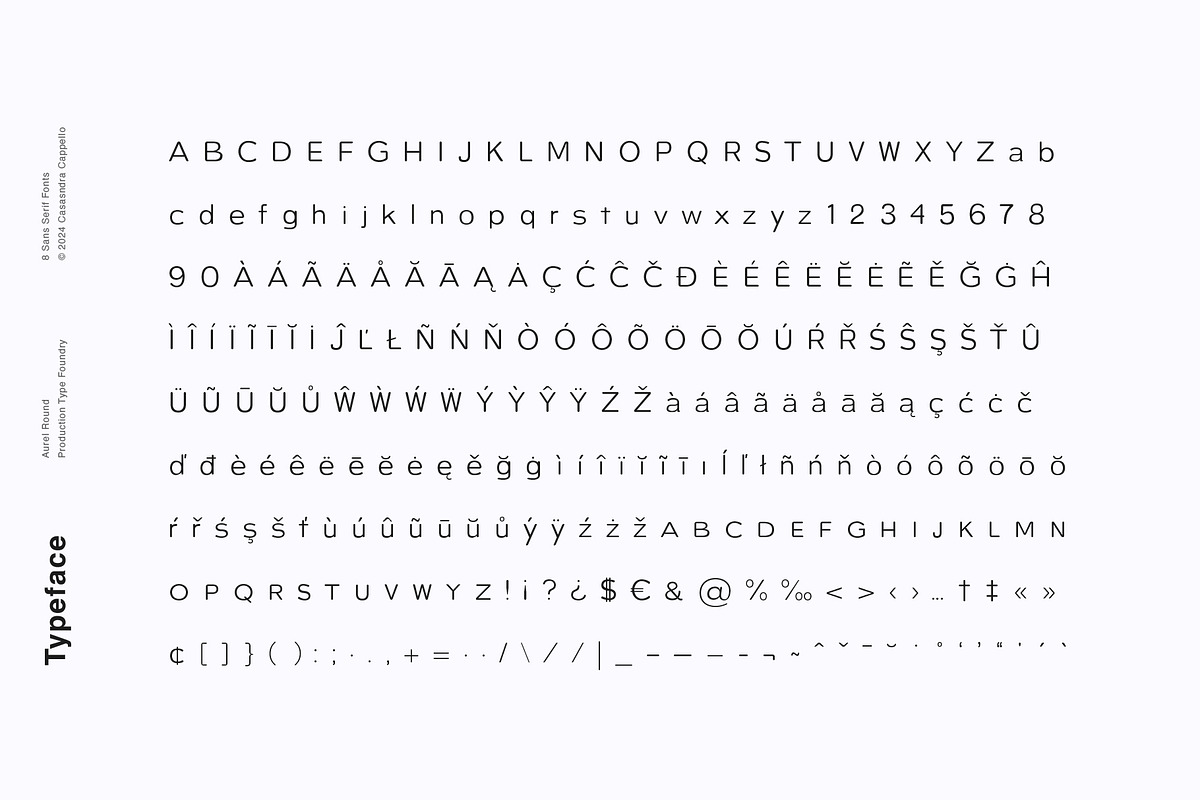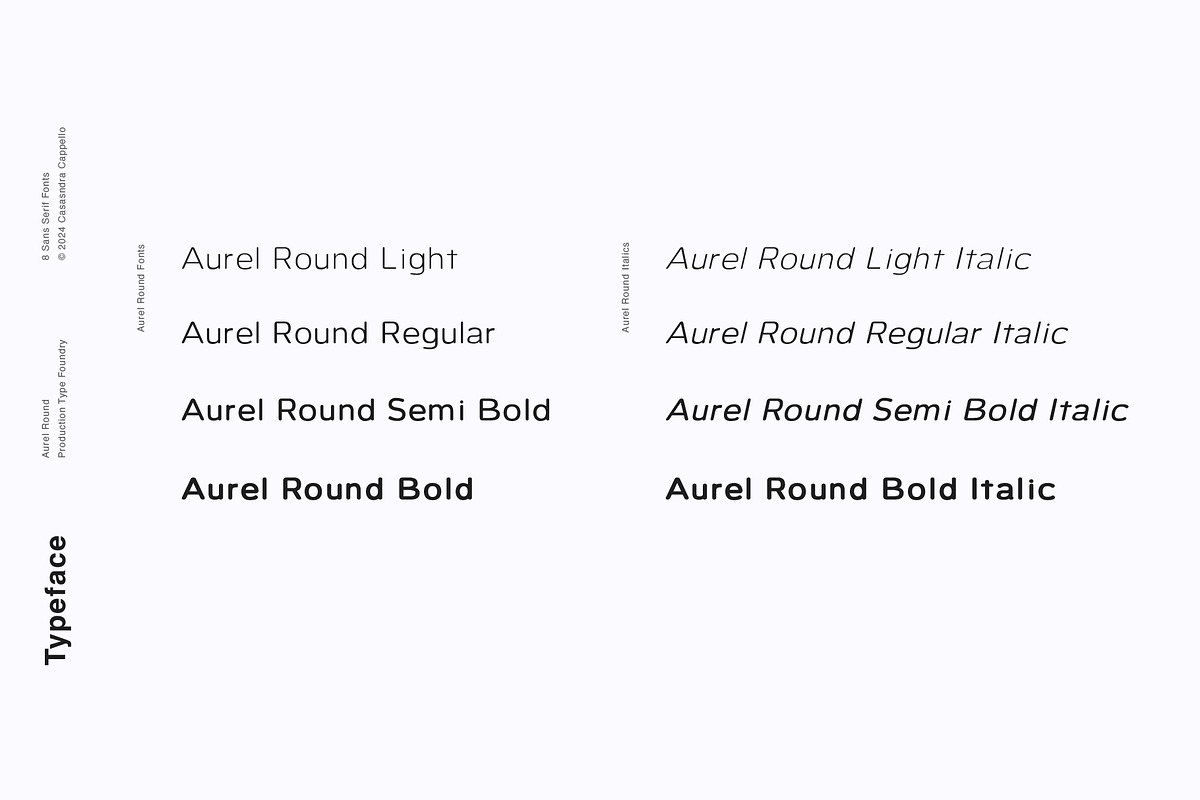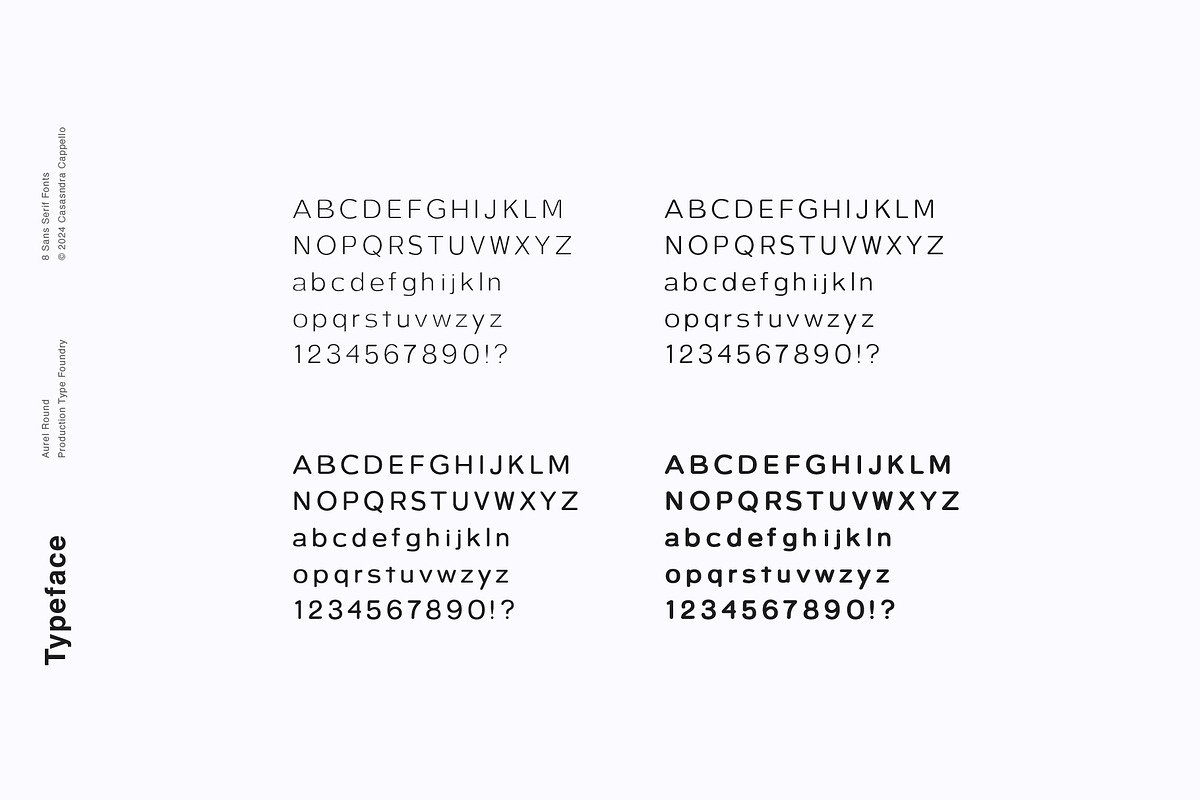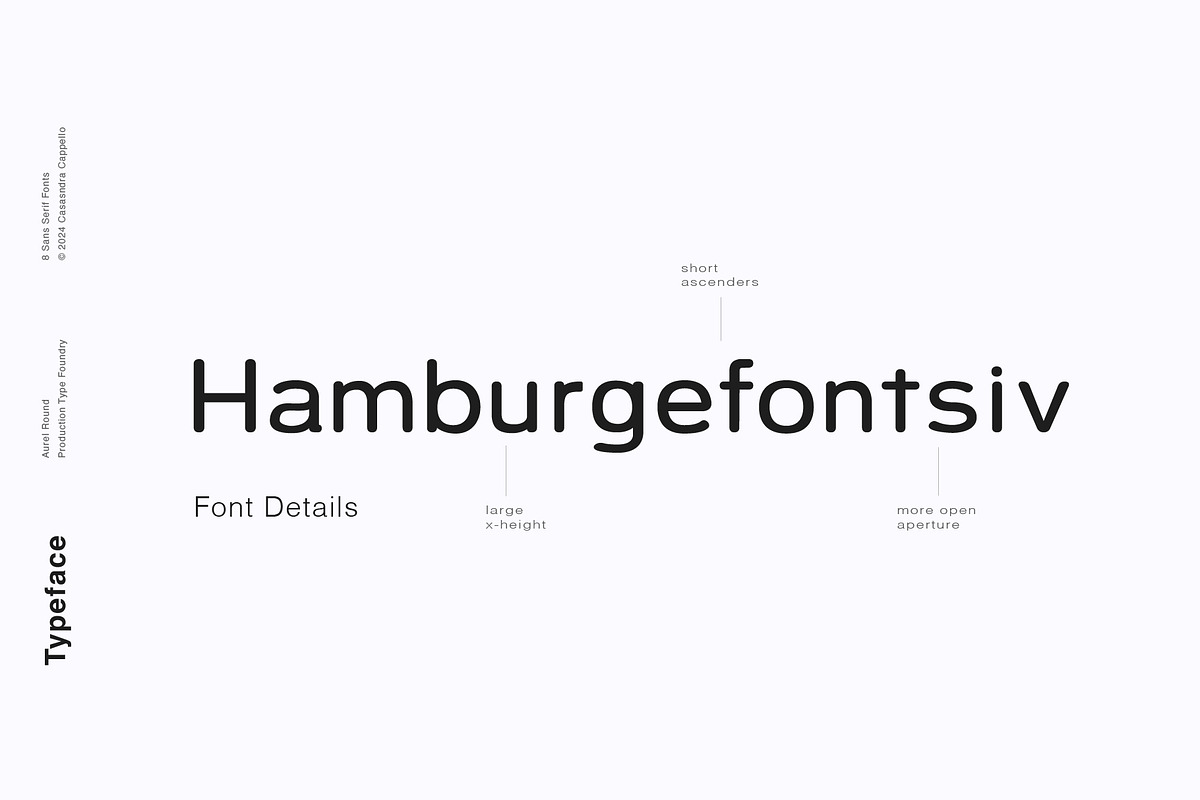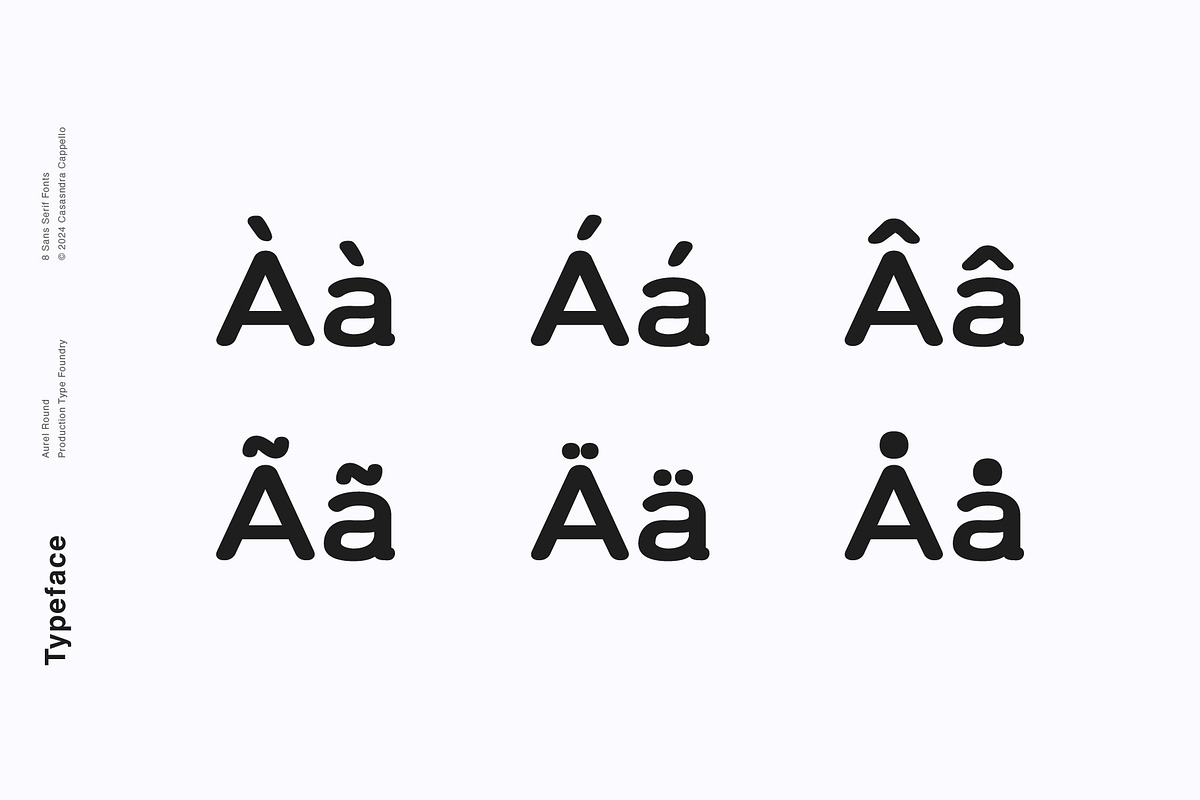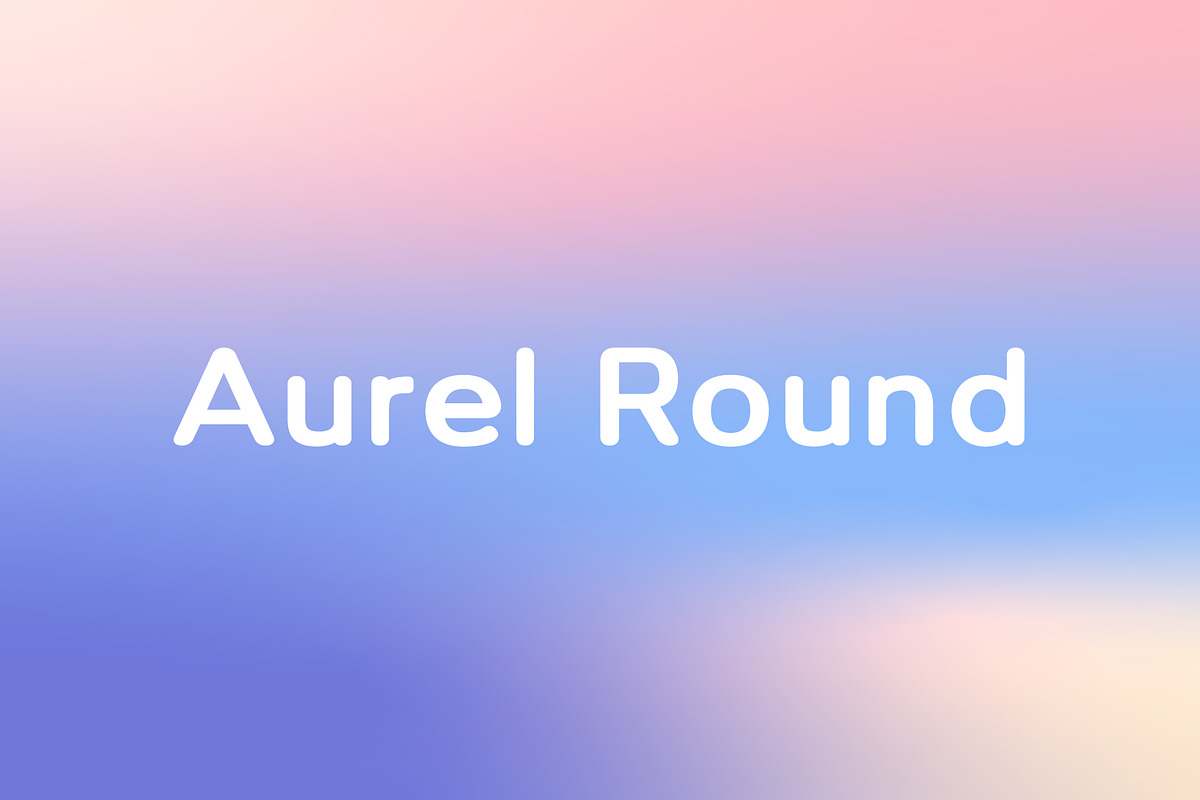
Aurel Round–An Open Sans Serif Type
Aurel Round is an open, modern, sans serif typeface. It has a little bit of irregularity to add personality and can be used for both headers and body copy. This font family includes all Latin characters (including accents), numbers, special characters, and punctuation.
Aurel Round includes eight fonts in OTF format: four weights and four italics.